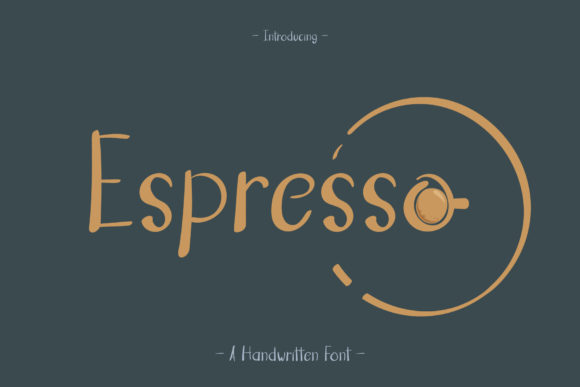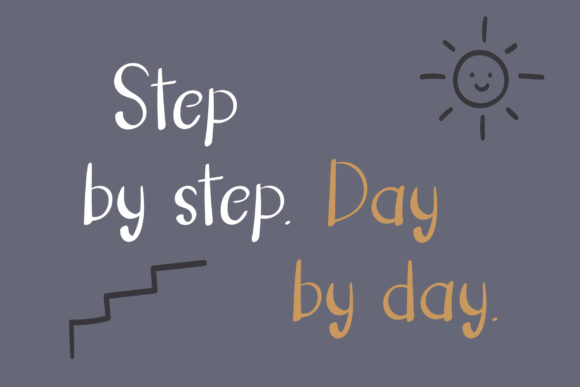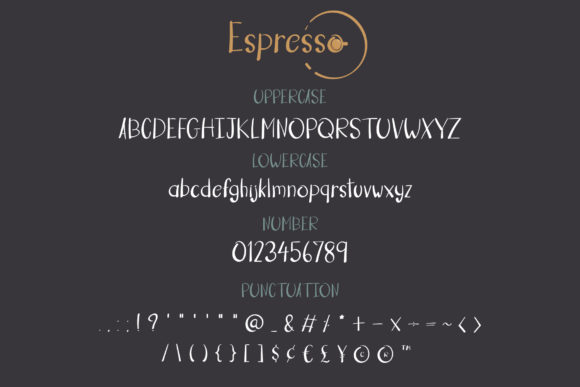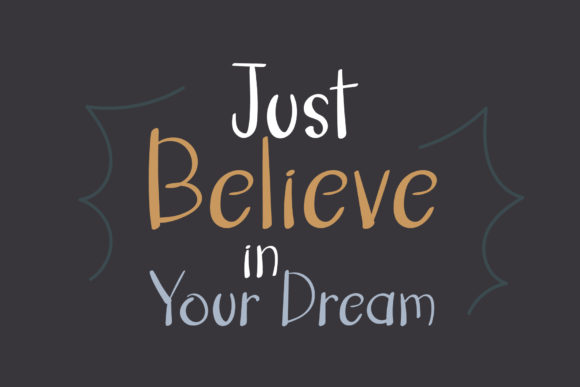
Espresso Font
About Espresso Font
Espresso is a cute and casual handwritten font with an incredibly friendly feel. Whether you’re looking for fonts for Instagram or calligraphy scripts for DIY projects, this font will turn any creative idea into a true piece of art!